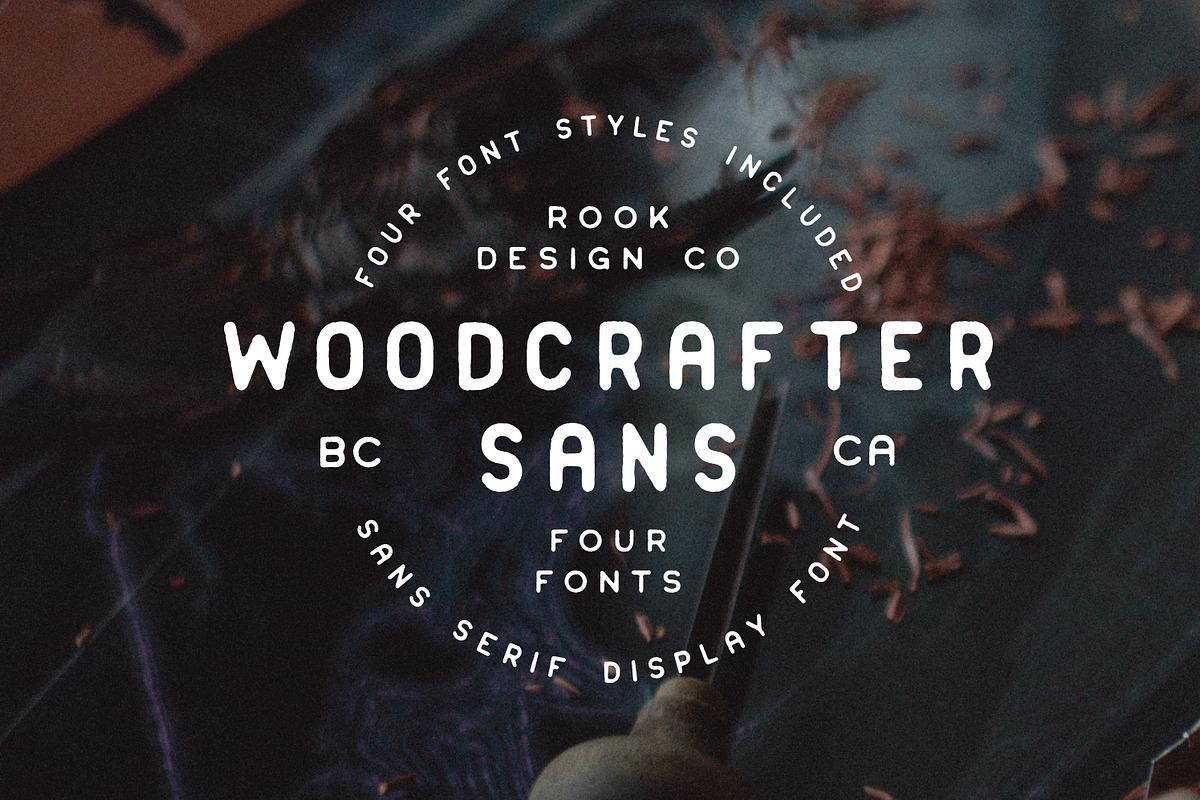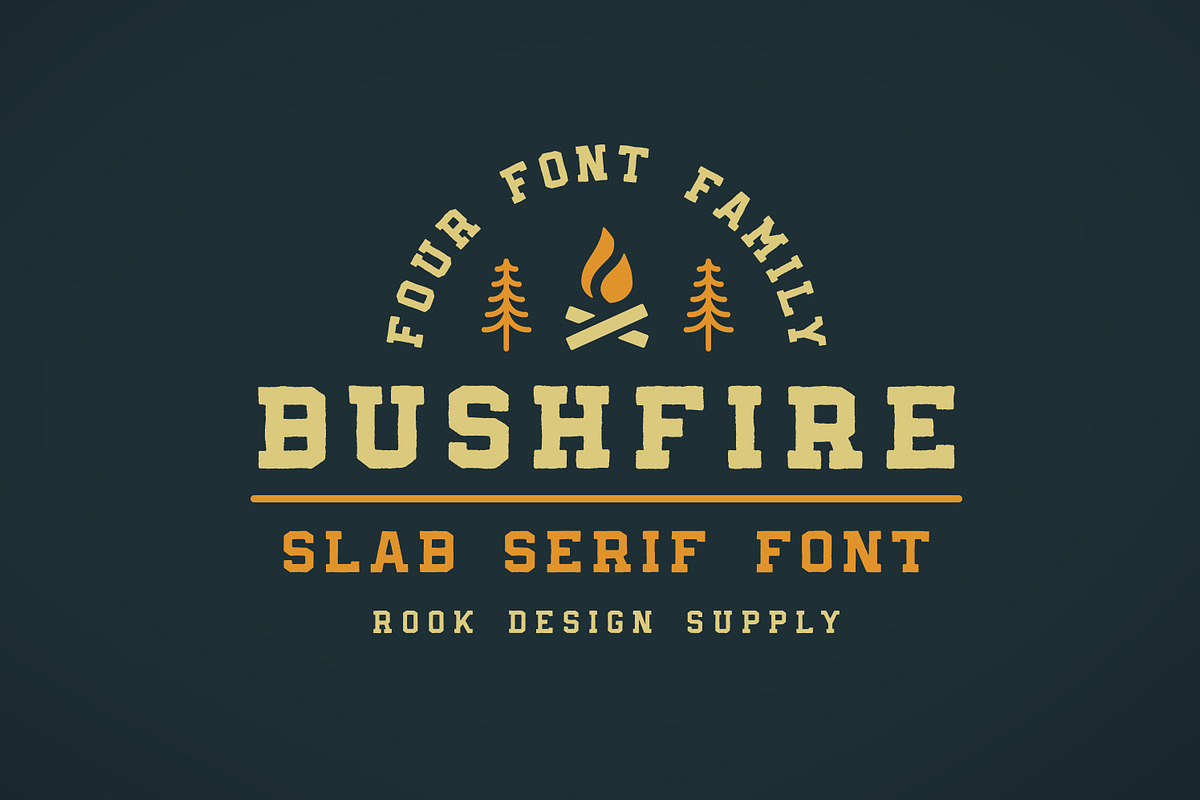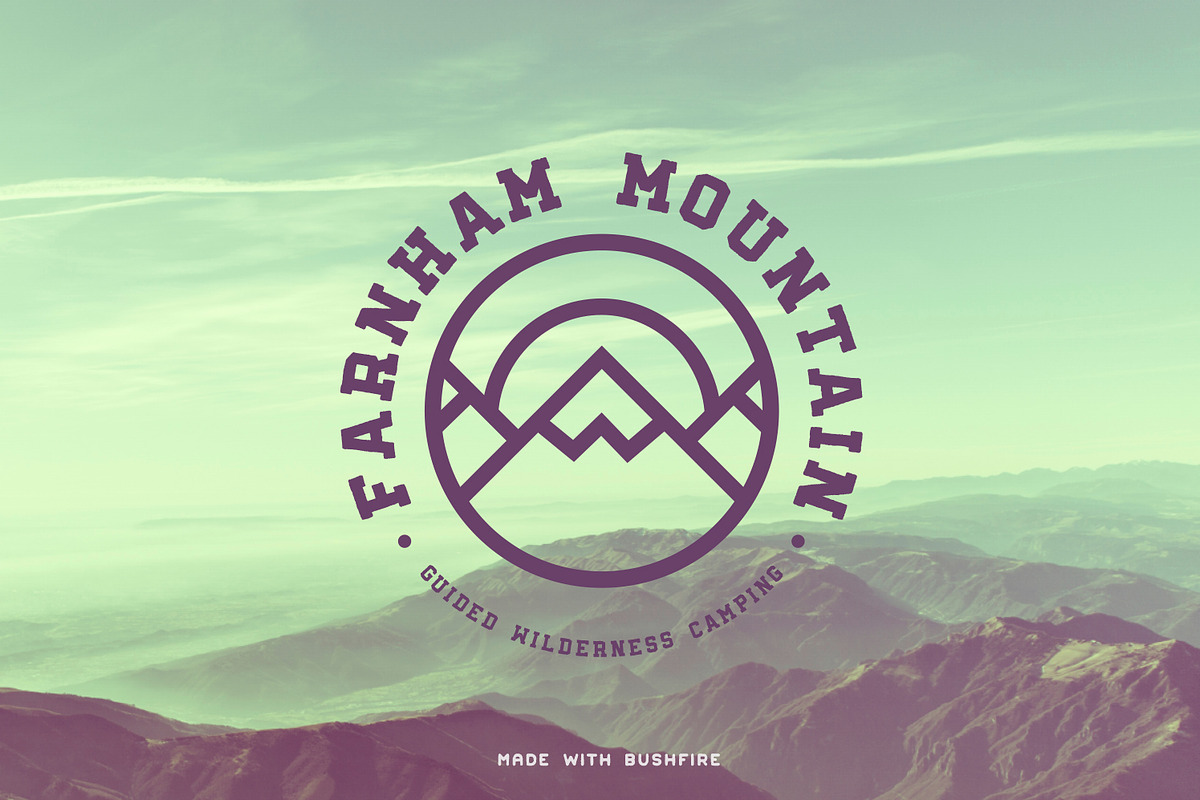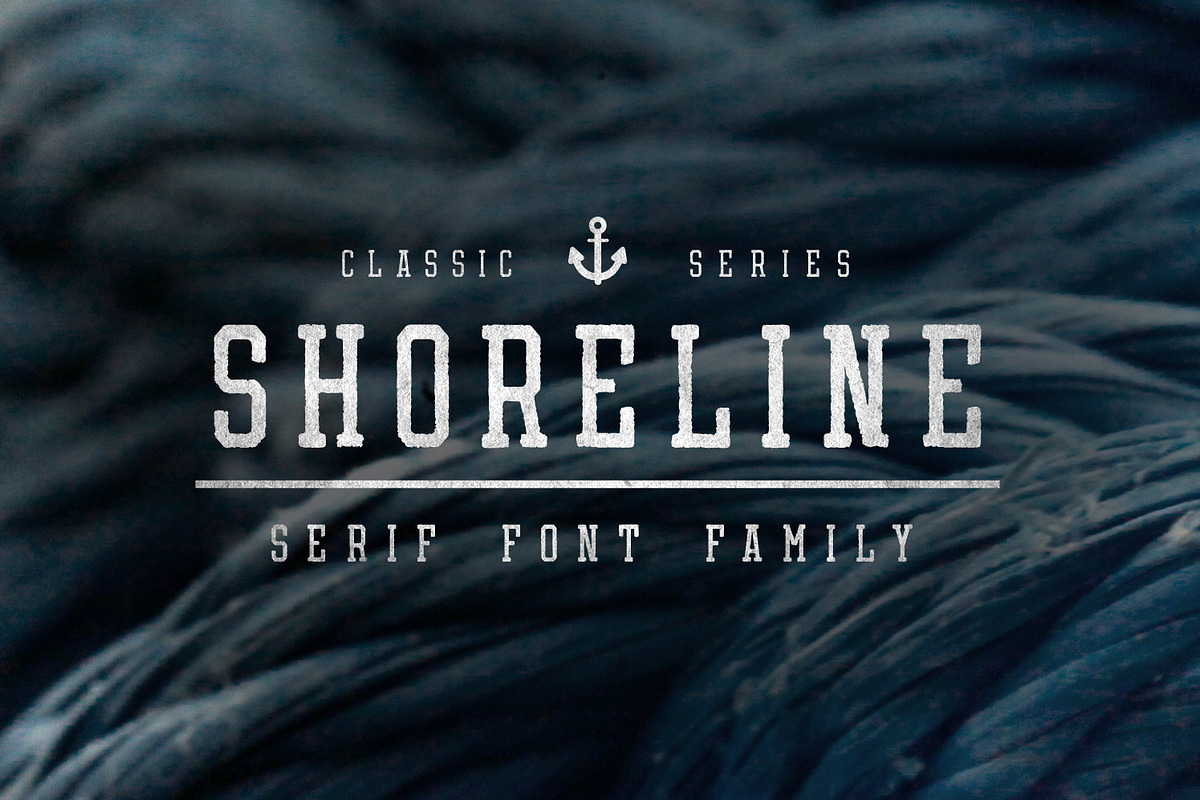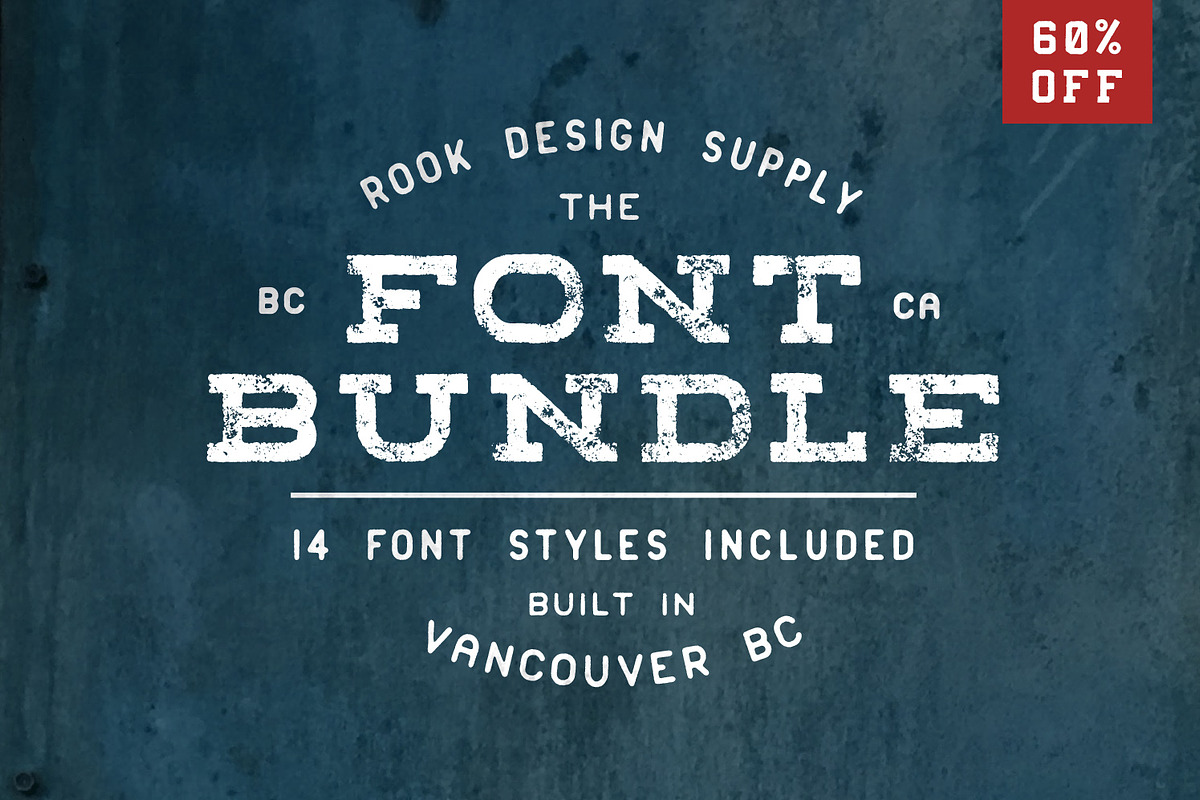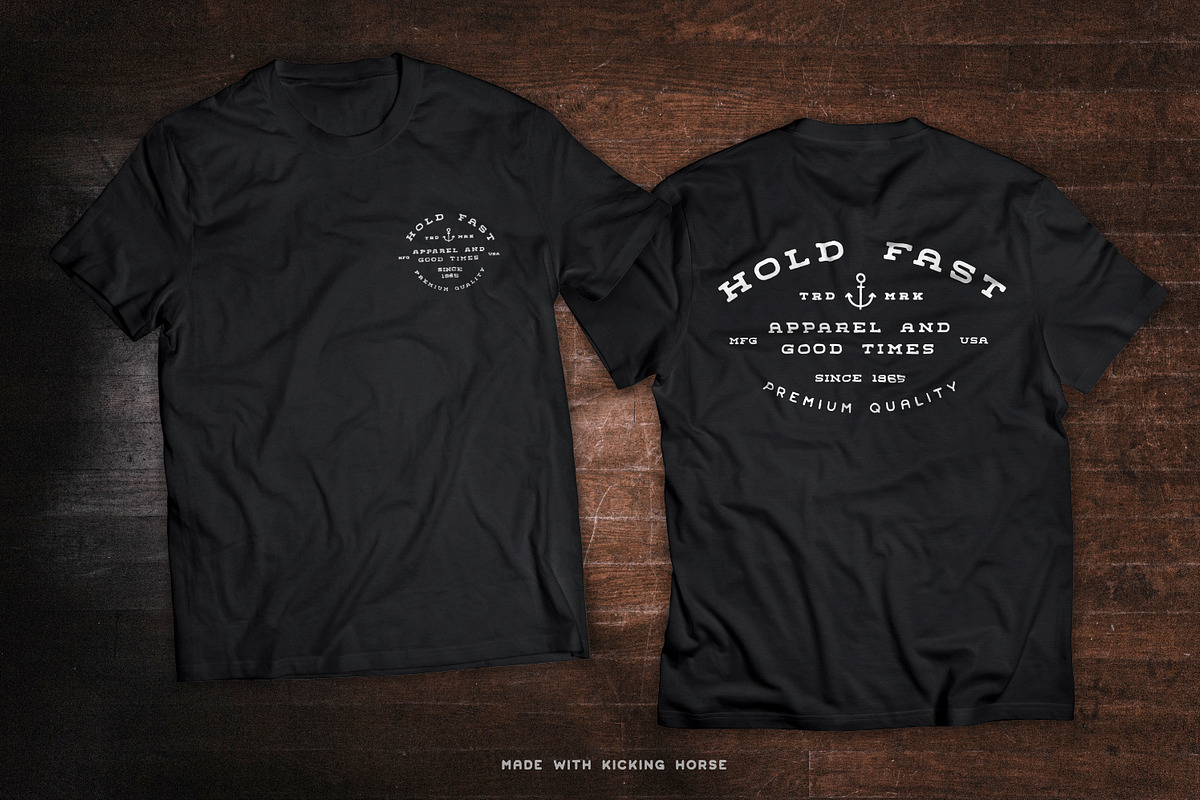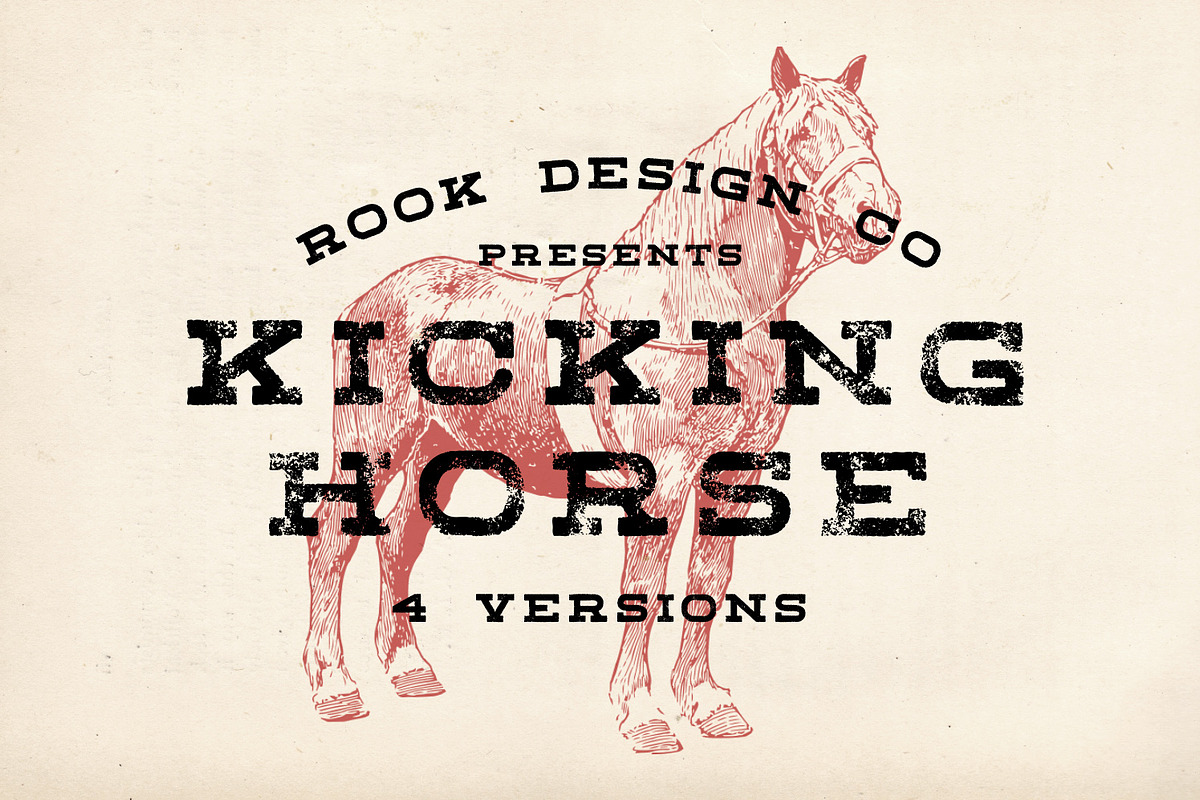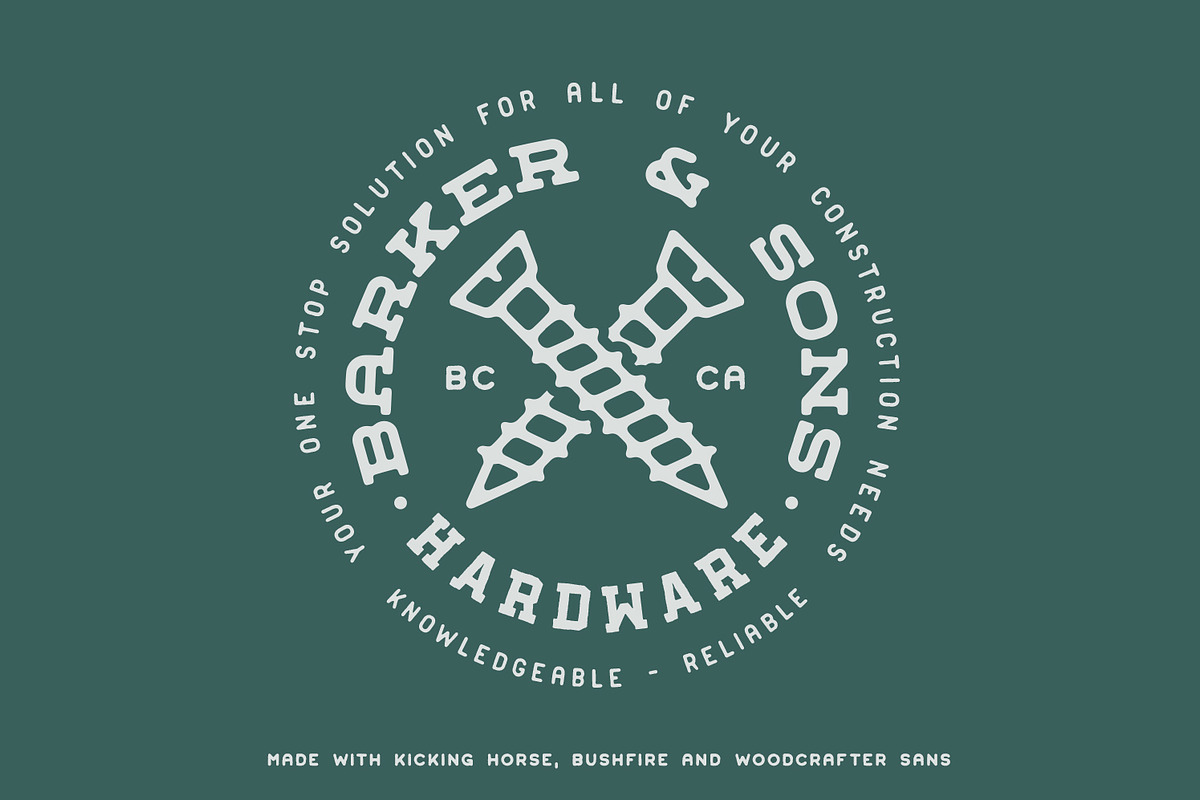
60% OFF Font Bundle - 14 Font Styles
- The included fonts: Bushfirehttps://creativemarket.com/helloimgreg/1359250 Bushfire is a slab serif font with a little bit of grit, and an o
- Bushfire Bold Condensed
- Kicking Horse Worn Extra
- Bushfire Regular
- Bushfire Bold
- Bushfire Condensed
- Kicking Horse Grunge
- Kicking Horse Rounded
- Kicking Horse Worn
- Shoreline Regular
- Shoreline Bold